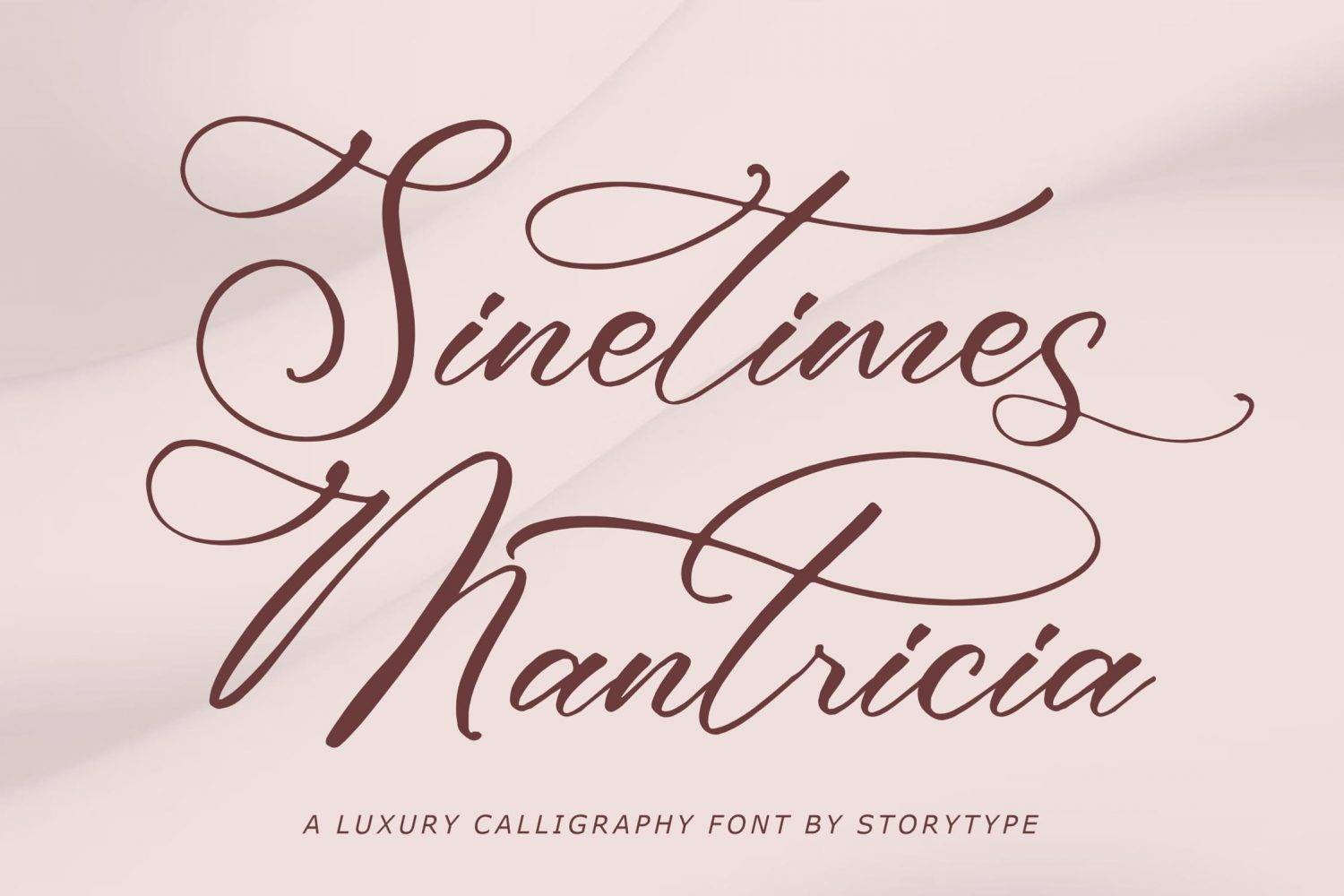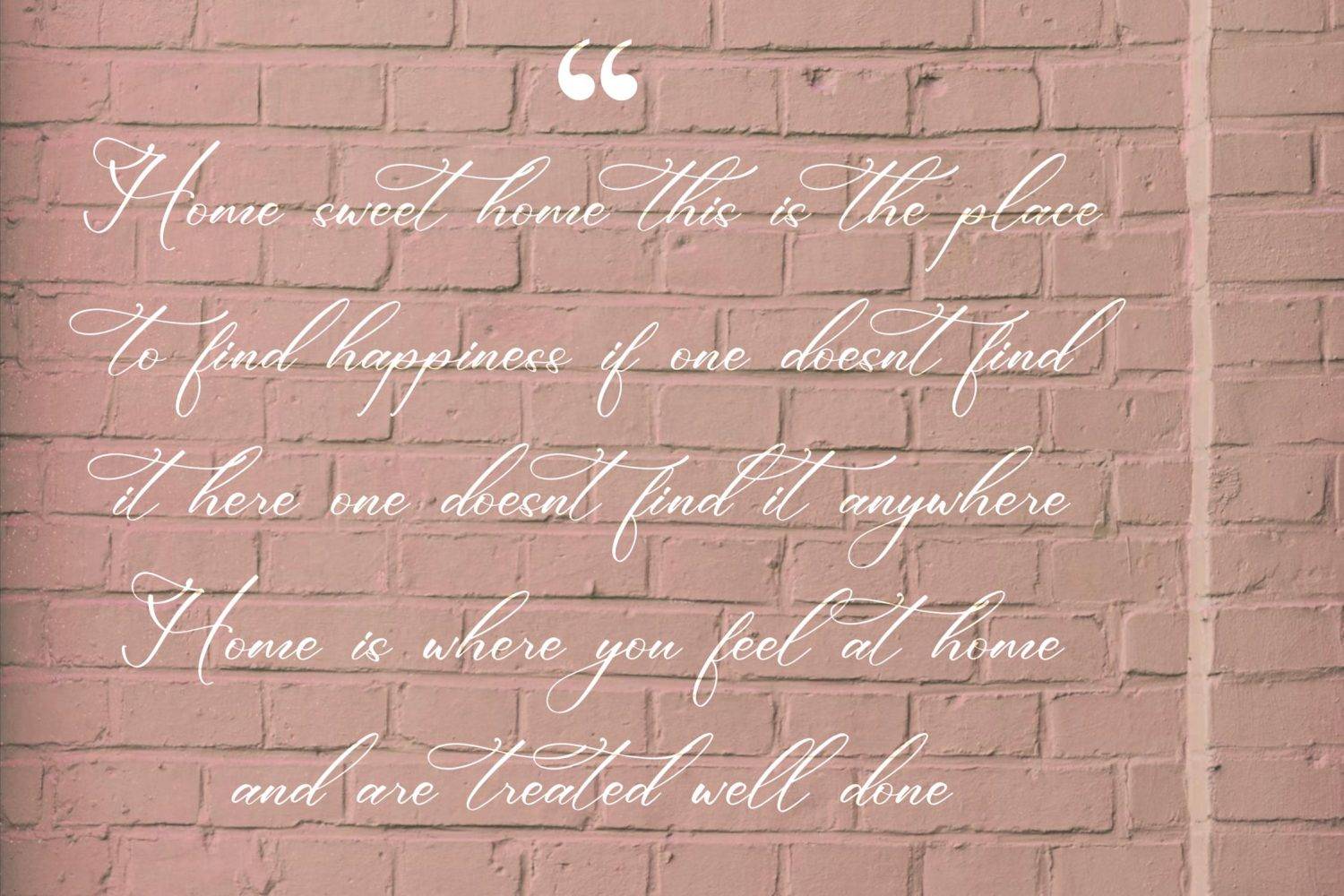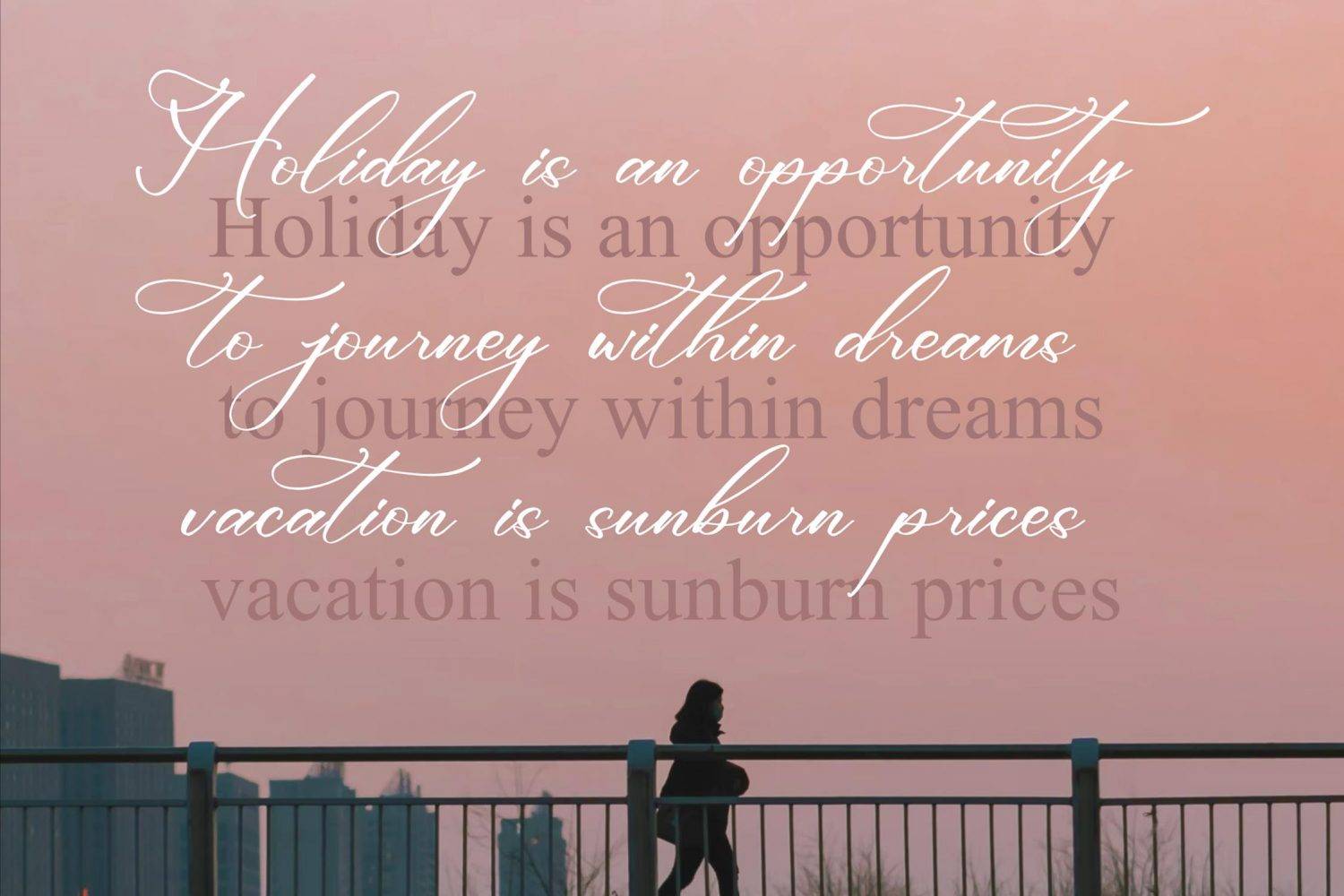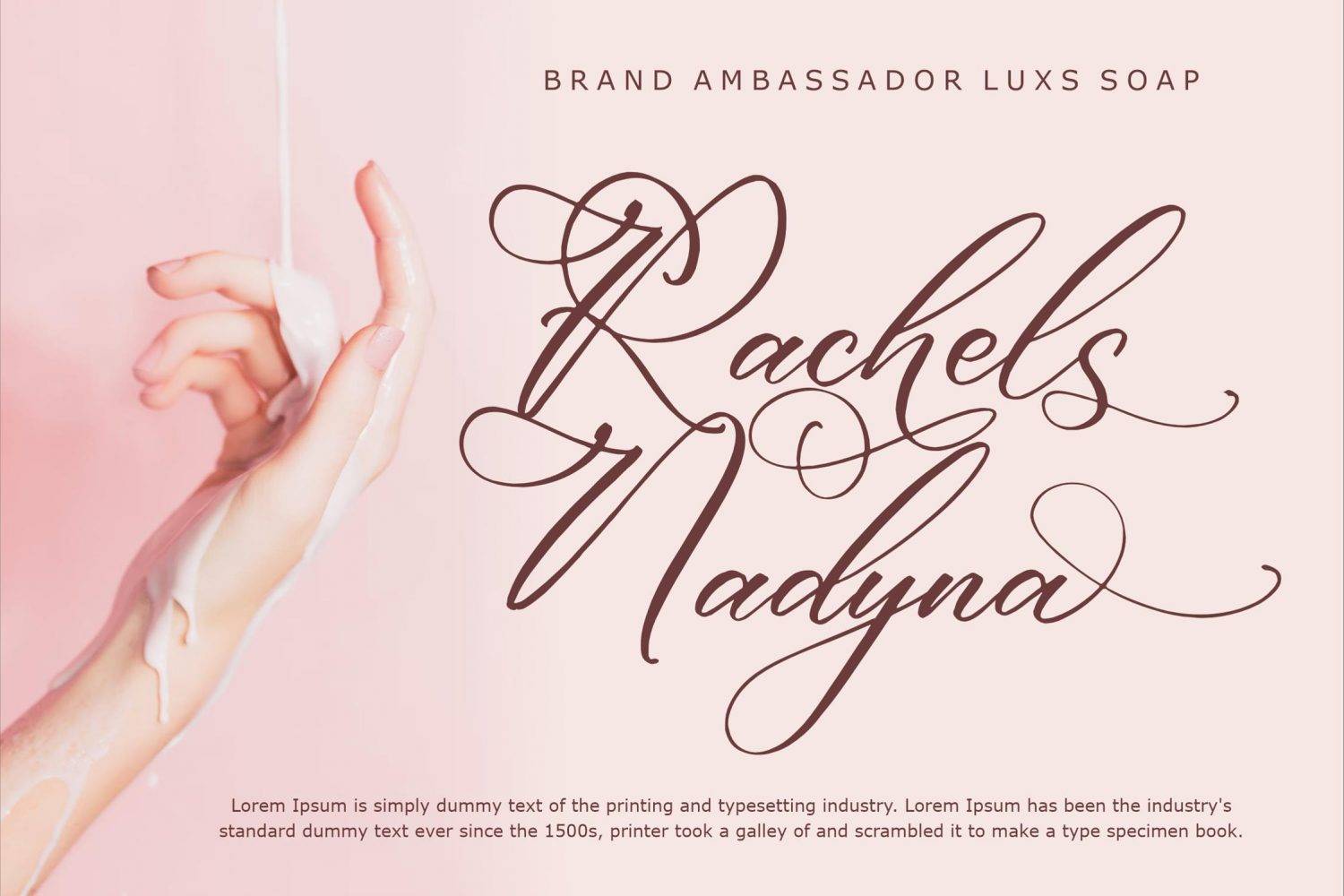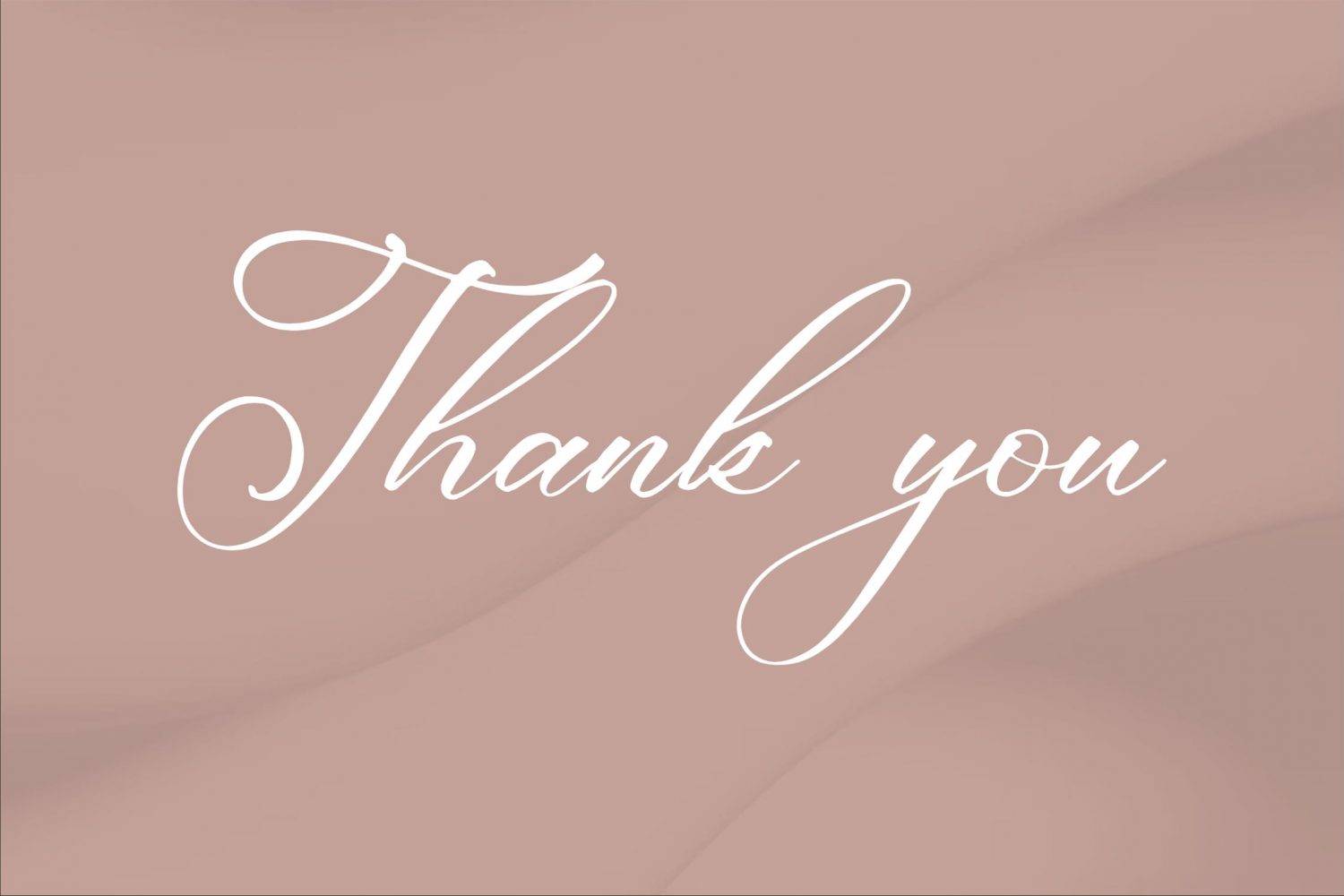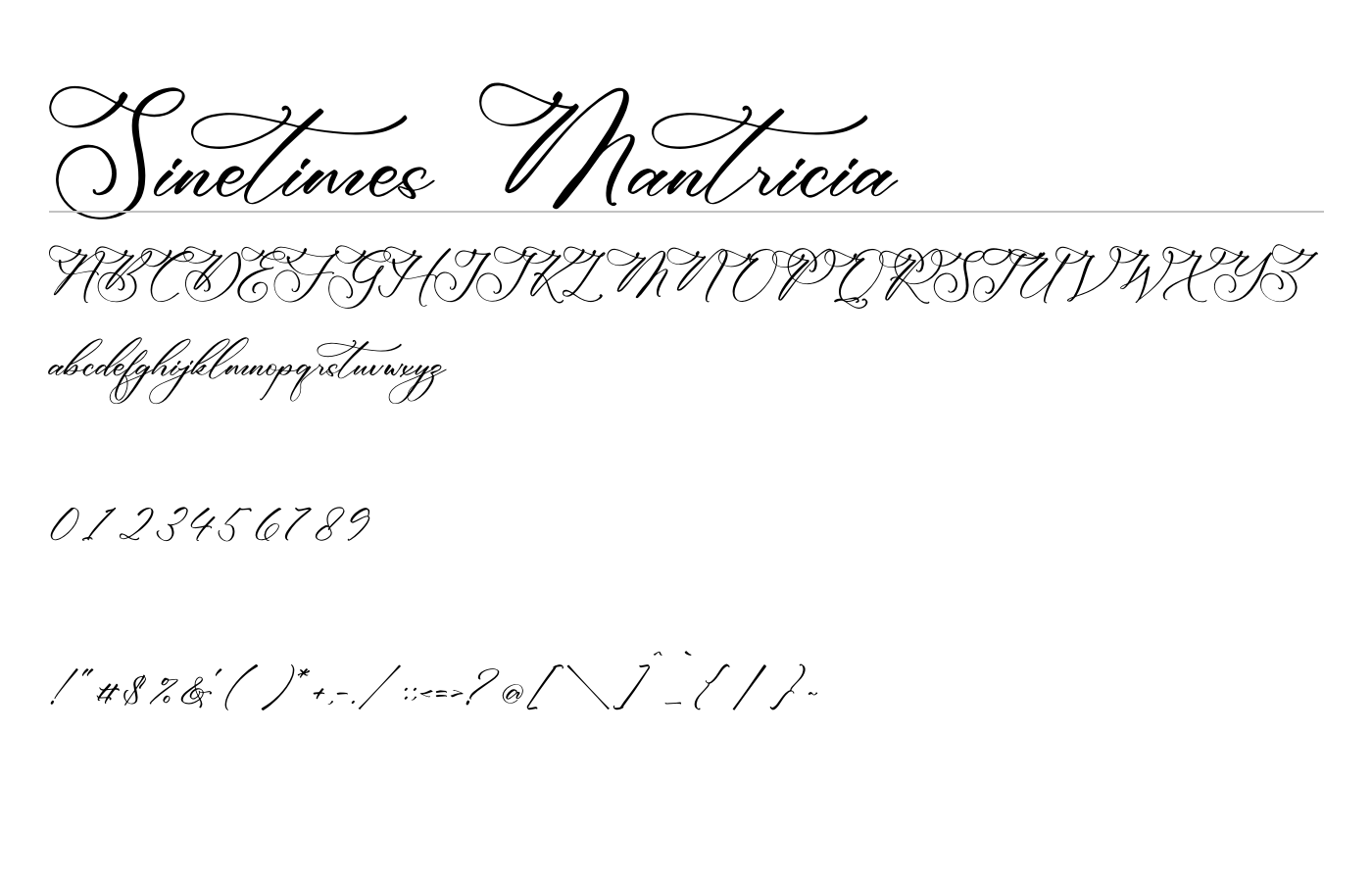
Sinetimes Mantricia is a delicate script font characterized by elegant, flowing strokes and intricate swashes that create a sophisticated and romantic feel. Its thin, calligraphic lines and ornate uppercase letters make it perfect for luxury branding, wedding invitations, and high-end editorial projects where a touch of refined elegance is desired. This font works best in display settings, adding graceful charm to logos, headlines, and invitations with its timeless, handcrafted style.
Sinetimes Mantricia Font
About Sinetimes Mantricia Font